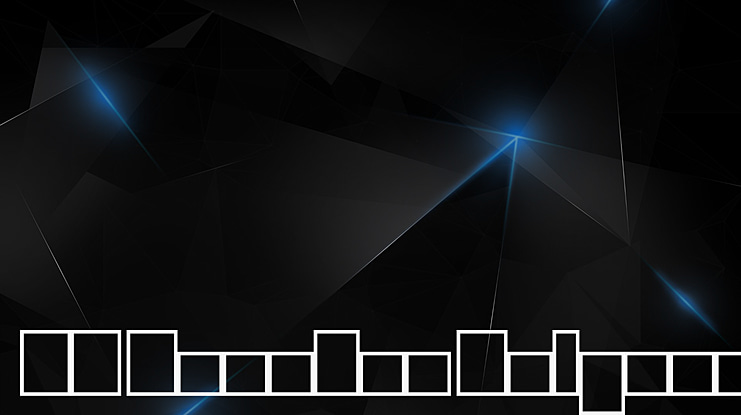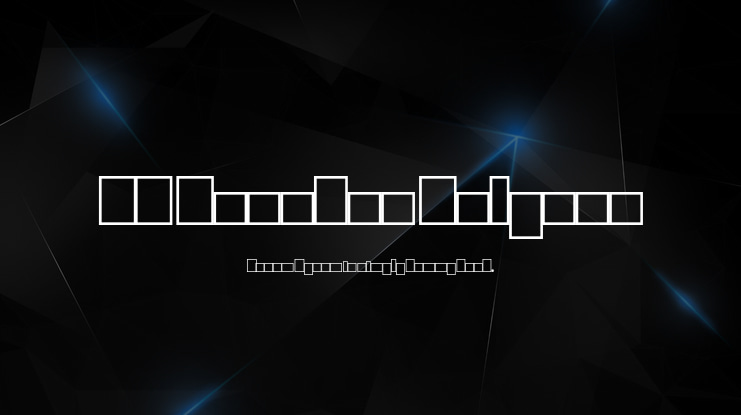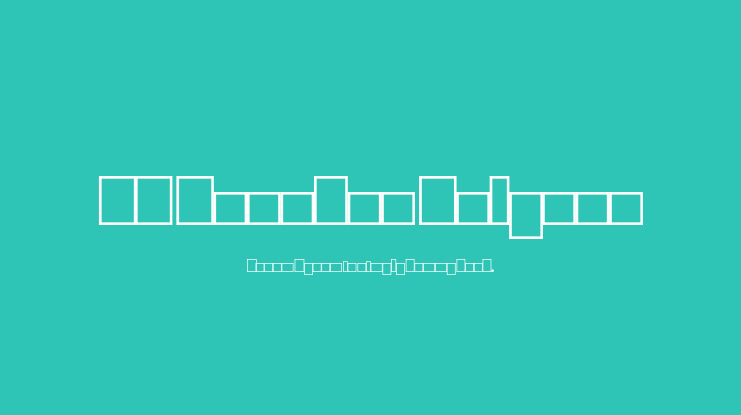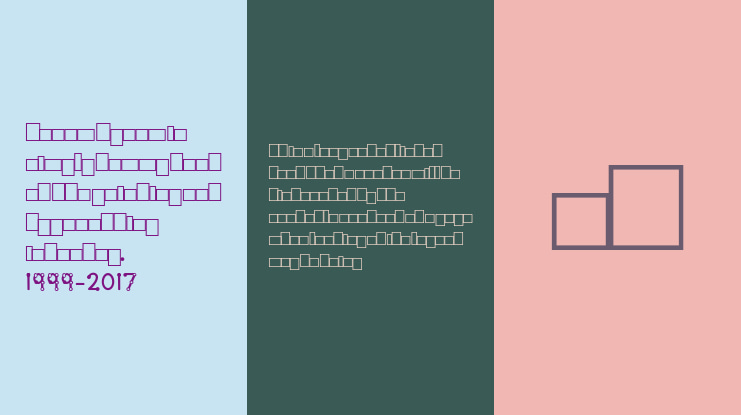
KG Teacher Helpers Font
Kimberly Geswein
This handy helper is created just for teachers. Use the letter boxes, number line helper, base ten blocks, multiple lined writing options, and touch numbers to help you create printables for your classroom.